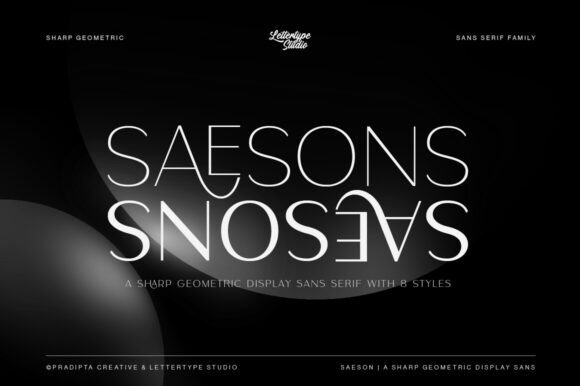
Saeson Font: A Sharp Geometric Display Sans Serif for Standout Designs
When it comes to creating unique and standout designs, having the right font is crucial. In the world of typography, there are countless options to choose from, but one font that has been gaining attention is Saeson. In this article, we’ll dive into the world of Saeson Font, exploring its features, benefits, and uses.
What is Saeson Font?
Saeson is a sharp geometric display sans serif font that offers a ton of customization options for your designs. With over 80+ alternate glyphs, Saeson provides endless possibilities for creativity and control over your projects. Its sleek and modern design makes it perfect for a wide range of applications, from web design to print materials.
Key Features of Saeson Font
- Sharp Geometric Design: Saeson boasts a sharp geometric design that gives it a modern and sleek look.
- Display Sans Serif: As a display sans serif font, Saeson is perfect for headlines, titles, and other display text.
- 80+ Alternate Glyphs: With over 80 alternate glyphs, Saeson offers a high level of customization for your designs.
- Endless Customization: The font’s alternate glyphs provide endless possibilities for creativity and control over your projects.
Uses of Saeson Font
Saeson Font is versatile and can be used for a wide range of design projects. Here are some of the ways you can use Saeson:
Perfect for:
- Web Design: Use Saeson to create stunning website headers, titles, and other display text.
- Photography: Add a touch of modernity to your photography with Saeson’s sleek design.
- Watermarks: Use Saeson to create custom watermarks for your photos and designs.
- Social Media Posts: Make your social media posts stand out with Saeson’s bold and modern design.
- Advertisements: Use Saeson to create eye-catching advertisements that grab attention.
- Logos and Branding: Create a unique brand identity with Saeson’s customizable design.
- Invitations: Use Saeson to create custom invitations for special events.
- Product Designs: Add a touch of modernity to your product designs with Saeson’s sleek design.
- Labels: Use Saeson to create custom labels for your products.
- Stationery: Create custom stationery with Saeson’s modern design.
- Wedding Designs: Use Saeson to create stunning wedding designs, including invitations and decorations.
- Product Packaging: Add a touch of modernity to your product packaging with Saeson’s sleek design.
- Sub-Headers or Headers: Use Saeson to create custom sub-headers or headers for your designs.
- Special Events: Use Saeson to create custom designs for special events, such as conferences, festivals, or exhibitions.
Benefits of Using Saeson Font
Saeson Font offers a range of benefits for designers and businesses. Here are some of the advantages of using Saeson:
Benefits:
- Unique and Standout Designs: With Saeson’s customizable design, you can create unique and standout designs that grab attention.
- High Level of Customization: Saeson’s 80+ alternate glyphs provide a high level of customization for your designs.
- Modern and Sleek Design: Saeson’s sharp geometric design gives it a modern and sleek look that’s perfect for a wide range of design projects.
- Versatility: Saeson can be used for a wide range of design projects, from web design to print materials.
- Easy to Read: Despite its bold and modern design, Saeson is easy to read, making it perfect for body text and other readable content.
Tips for Using Saeson Font
Here are some tips for using Saeson Font effectively:
Tips:
- Experiment with Alternate Glyphs: Take advantage of Saeson’s 80+ alternate glyphs to create unique and standout designs.
- Pair with Other Fonts: Pair Saeson with other fonts to create a unique and visually appealing design.
- Use for Display Text: Use Saeson for display text, such as headlines and titles, to grab attention.
- Adjust Font Size and Color: Adjust the font size and color to create a visually appealing design.
Saeson Font is a sharp geometric display sans serif font that offers a ton of customization options for your designs. With over 80+ alternate glyphs, Saeson provides endless possibilities for creativity and control over your projects. Its modern and sleek design makes it perfect for a wide range of design projects, from web design to print materials. By following the tips outlined in this article, you can use Saeson to create unique and standout designs that grab attention.